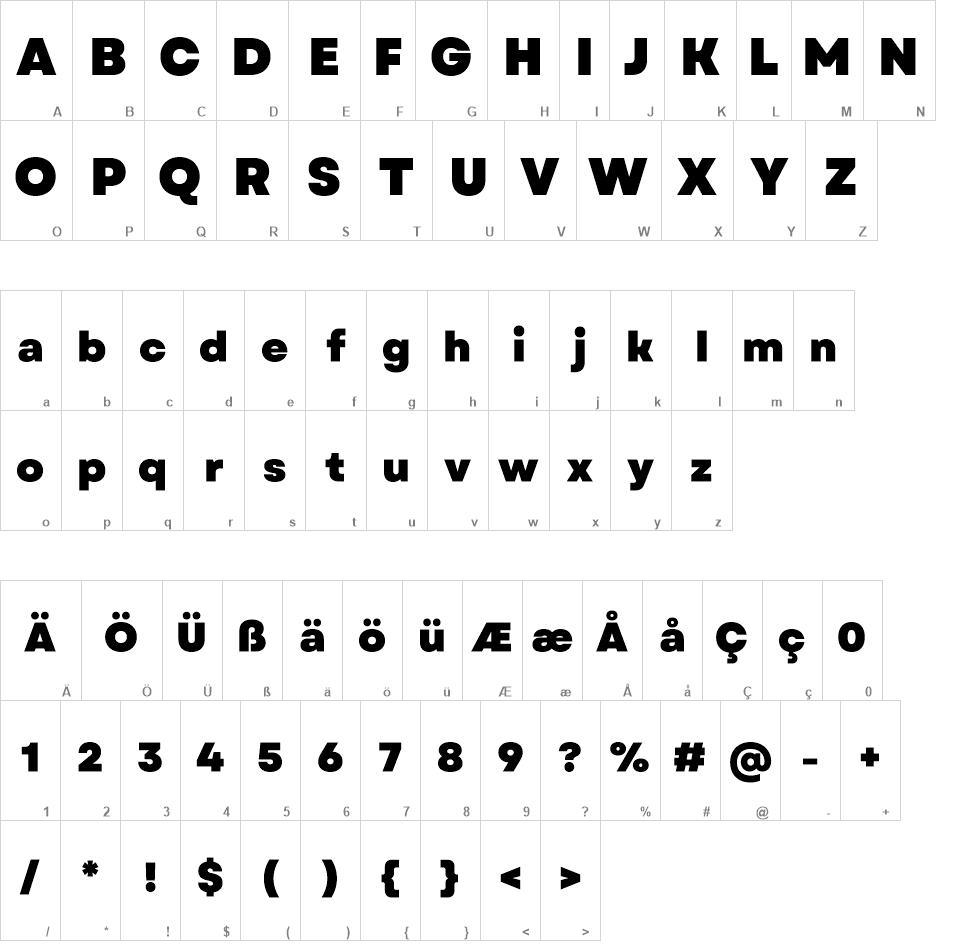
Garet-Bold Font
Garet-Bold Font - Web garet font family. Web garet is a modern geometric sans serif.
Web garet font family. Web garet is a modern geometric sans serif.
Web garet is a modern geometric sans serif. Web garet font family.
Web garet font family. Web garet is a modern geometric sans serif.
Web Garet Is A Modern Geometric Sans Serif.
Web garet font family.